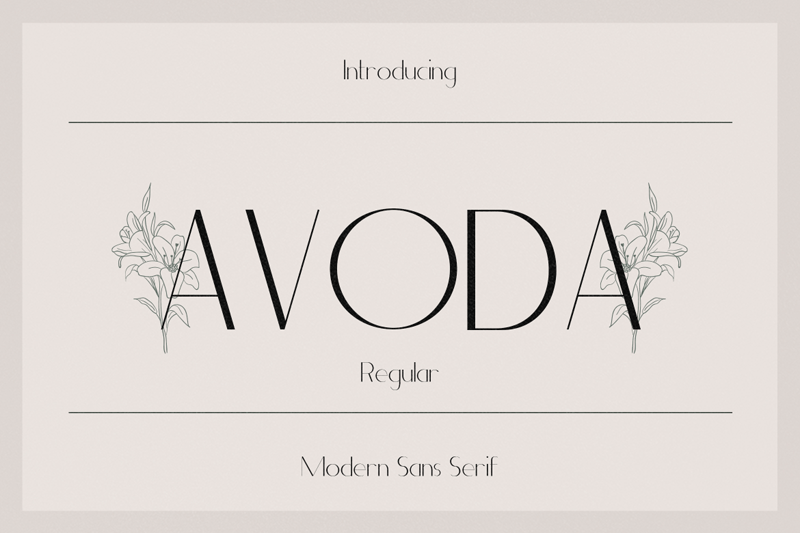
Font name: | Avoda |
Author: | Type Factory |
Note by Type Factory | |
Avoda is an elegant and modern sans serif font. No matter the topic, this font will be an incredibly asset to your fonts� library, as it has the potential to elevate any creation. Full Version Download Here : https://typefactory.co/product/avoda-modern-sans-serif/ https://www.creativefabrica.com/product/avoda/ |